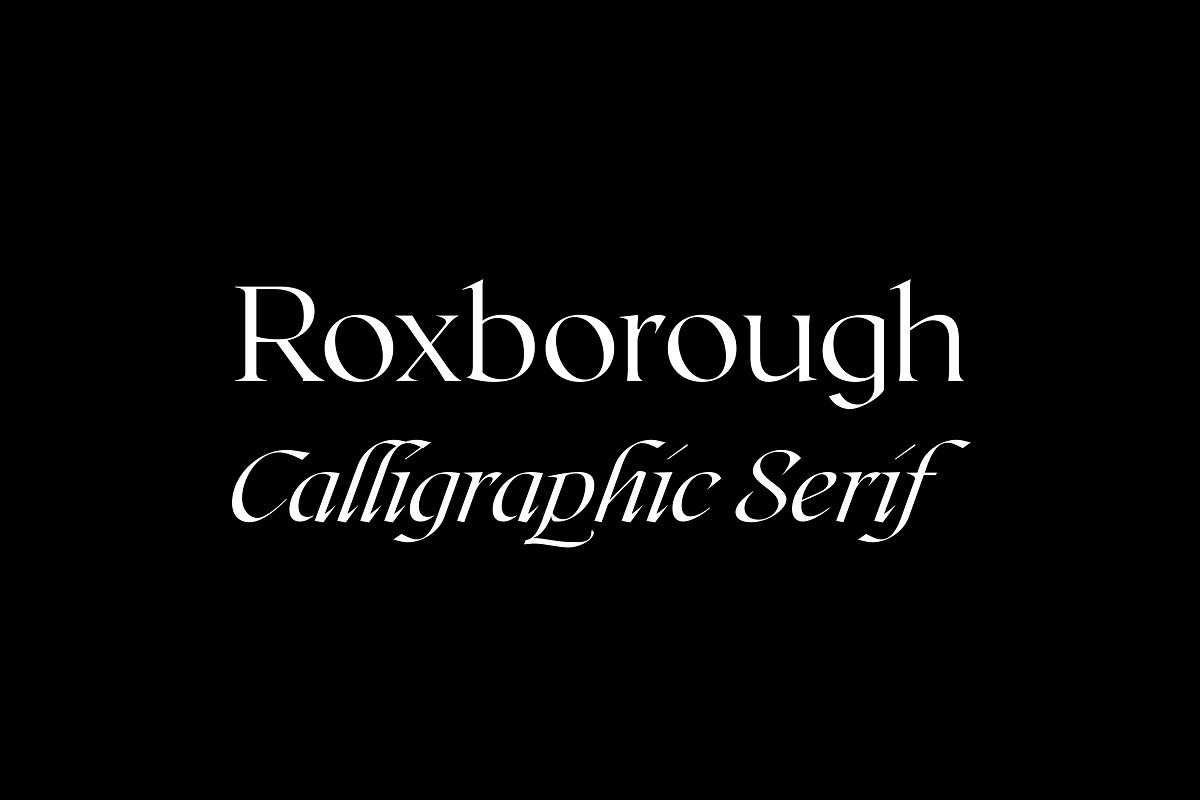
Roxborough CF Font
The Roxborough CF Font excels in various design applications including elegant corporate branding, sophisticated book publishing, upscale magazine layouts, luxury real estate marketing, premium financial services materials, high-end law firm identities, exclusive club memberships, refined academic publications, and distinguished event invitations. This distinguished typeface brings timeless sophistication to both professional digital platforms and prestigious print applications.
What makes Roxborough CF Font exciting is its perfect balance between classical elegance and contemporary functionality. The font features refined letterforms with subtle serif details and carefully proportioned characters that evoke traditional craftsmanship while delivering modern performance. Its sophisticated design philosophy combines historical typography principles with contemporary readability standards, creating visual experiences that are both authoritative and approachable.
The Roxborough CF Font family includes multiple weights and styles: Regular, Bold, Light, Medium, Semi-Bold, Italic, and Small Caps variations. Each style maintains the signature classical elegance while offering designers comprehensive flexibility for sophisticated brand systems and professional document layouts. The extensive character set supports international languages and includes traditional symbols, stylistic alternates, and premium punctuation marks perfect for formal communications.
The technical excellence of Roxborough CF Font includes meticulously calibrated kerning pairs, advanced OpenType features, and flawless cross-platform compatibility. Whether you're designing corporate logos or extensive annual reports, this font maintains its professional appearance. The balanced proportions work beautifully in both headline applications and extended reading while preserving optimal legibility and visual dignity.
Professional agencies appreciate how Roxborough CF Font enhances brand communication through its refined traditional aesthetic. The font's classical elegance makes it ideal for banking institutions, legal practices, academic publishers, and established corporations seeking to convey trustworthiness and sophistication. Its authoritative character complements various design styles while establishing credible brand personalities in competitive professional markets.
From elegant business cards to comprehensive corporate reports, Roxborough CF Font maintains its distinguished character across all applications. The font's sophisticated construction ensures visual credibility in established professional environments while its refined details demonstrate exceptional quality, making it an invaluable resource for designers creating memorable institutional brand experiences.